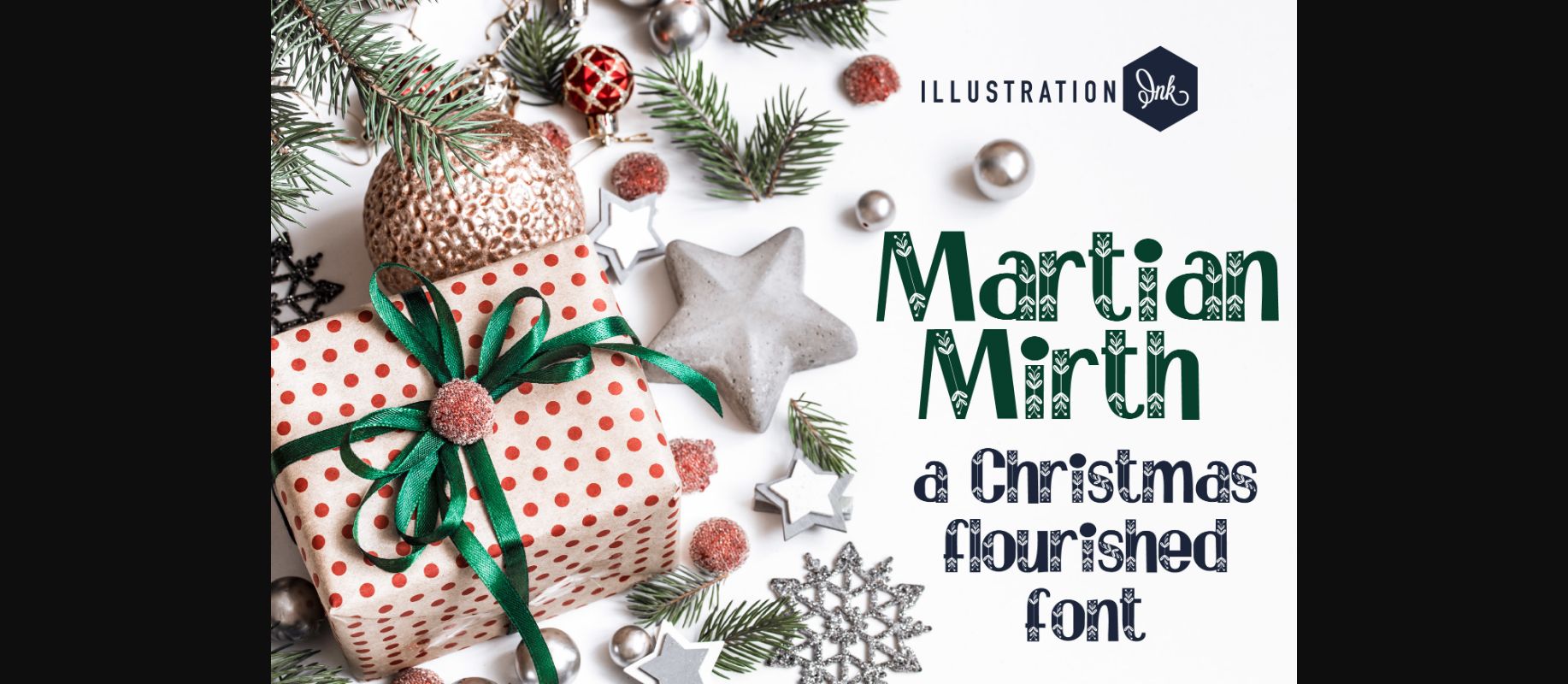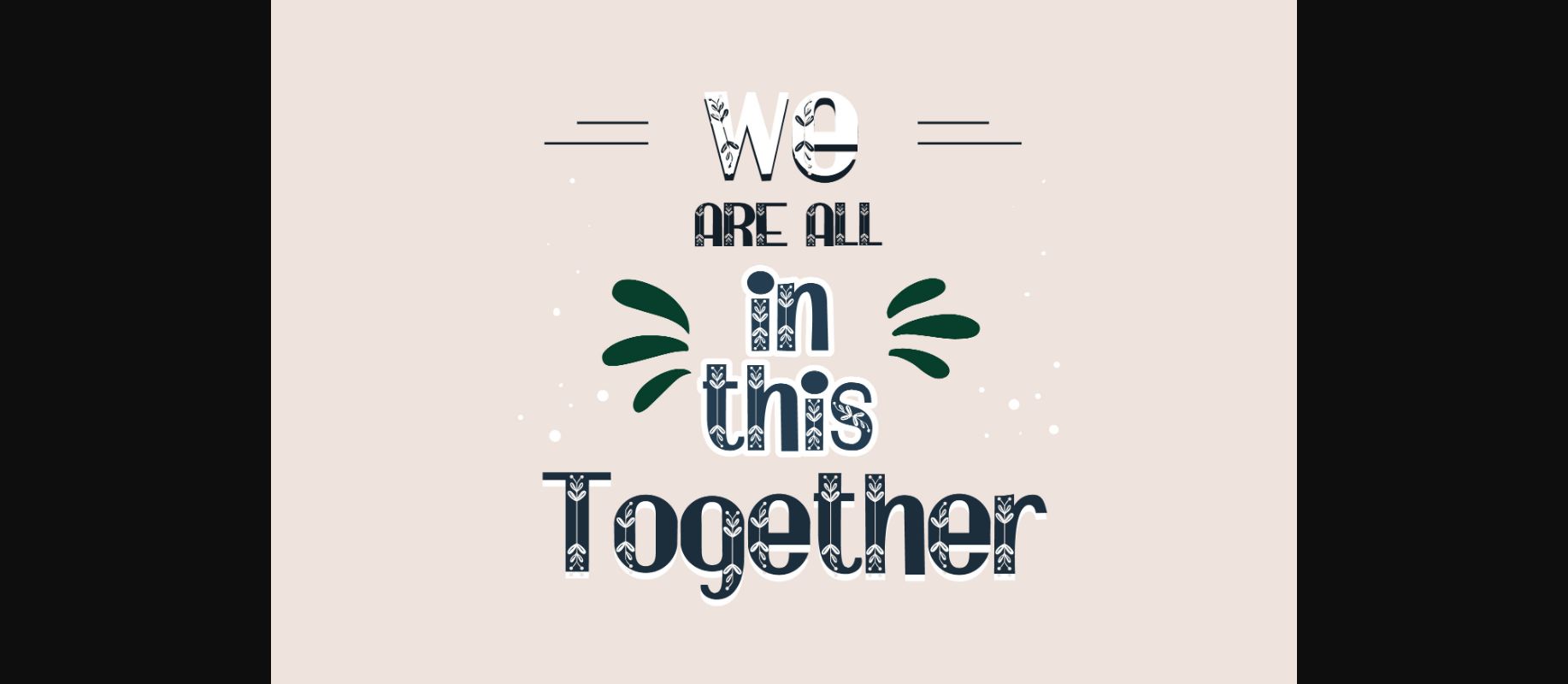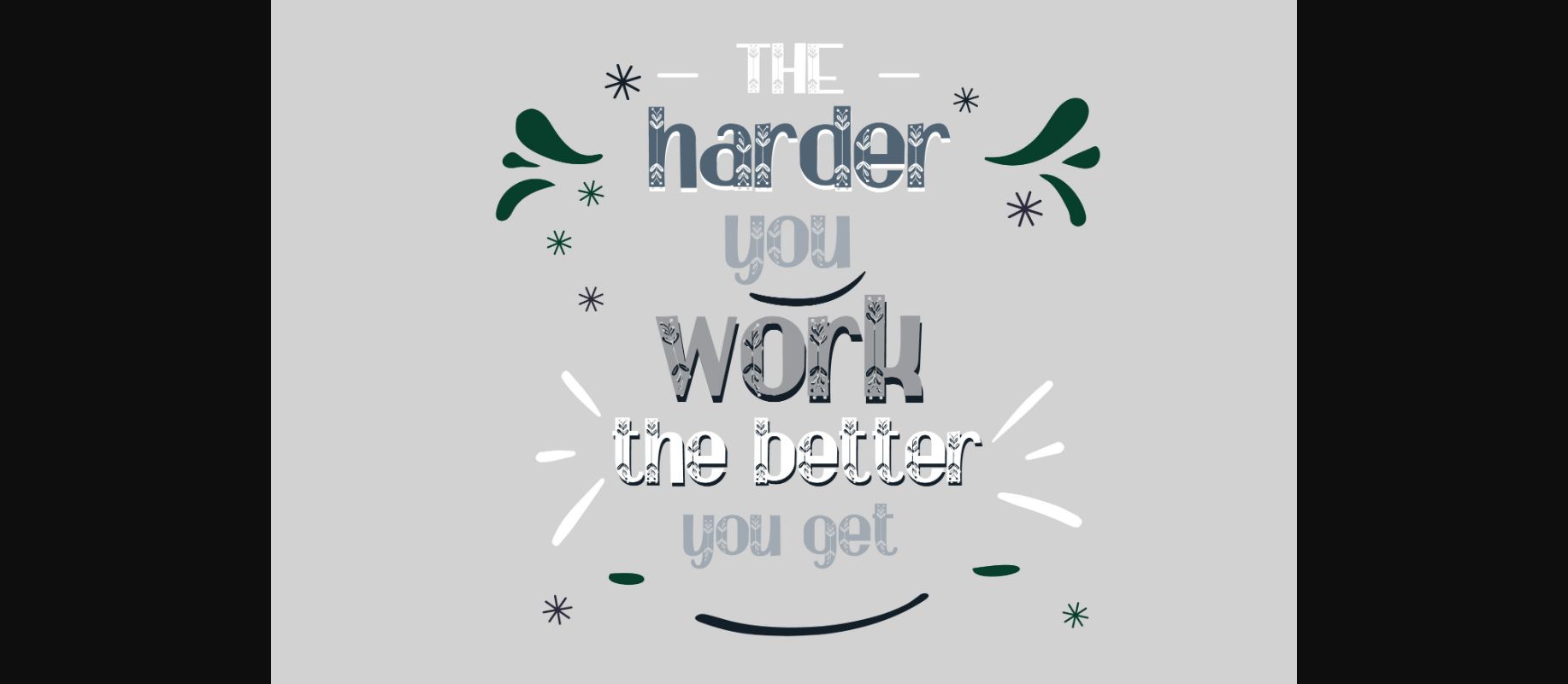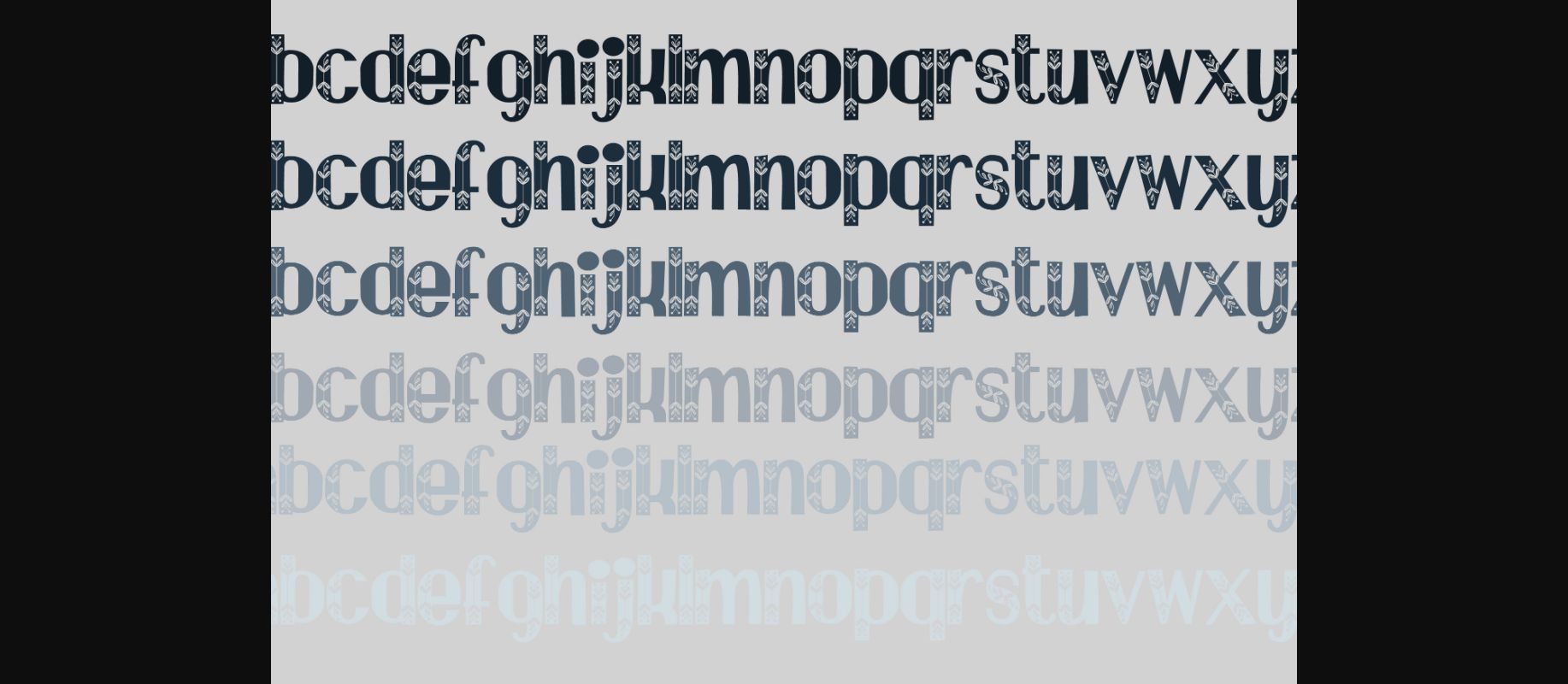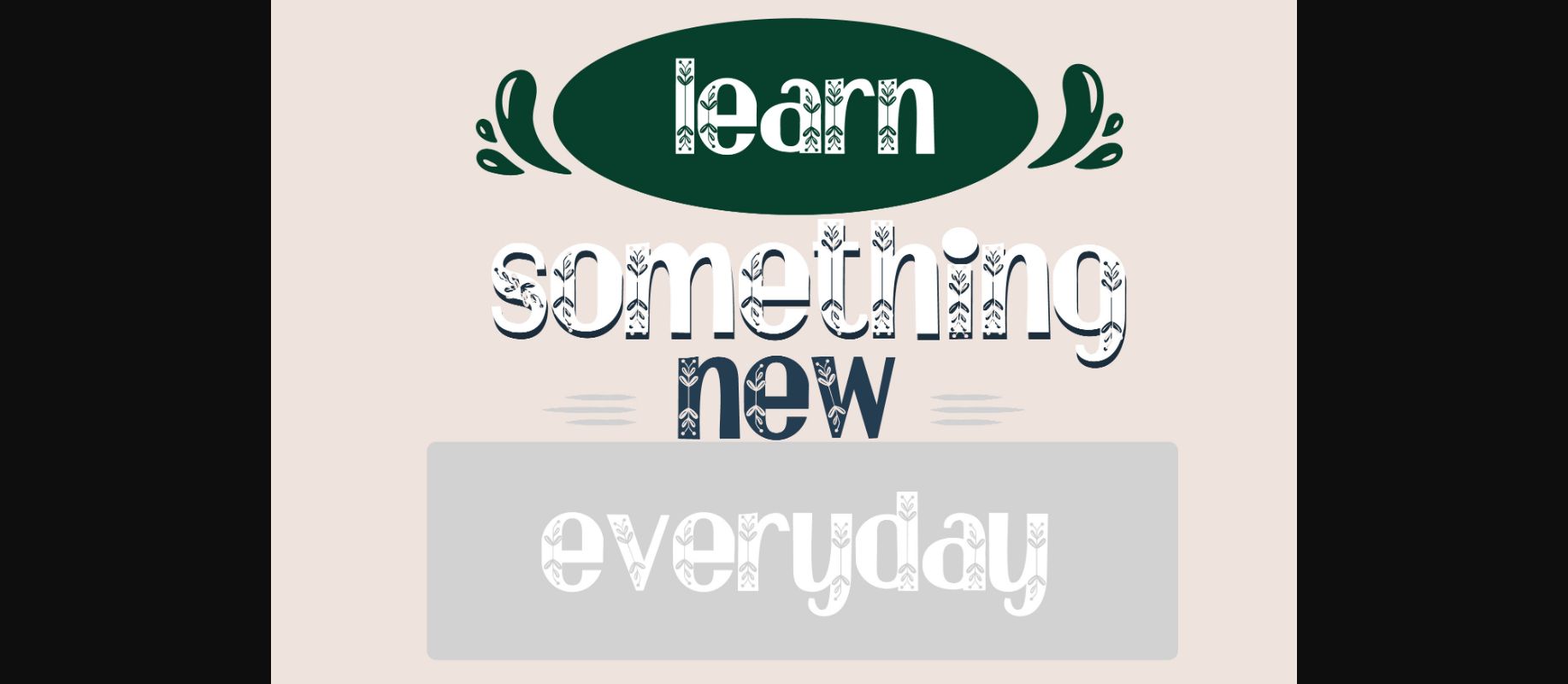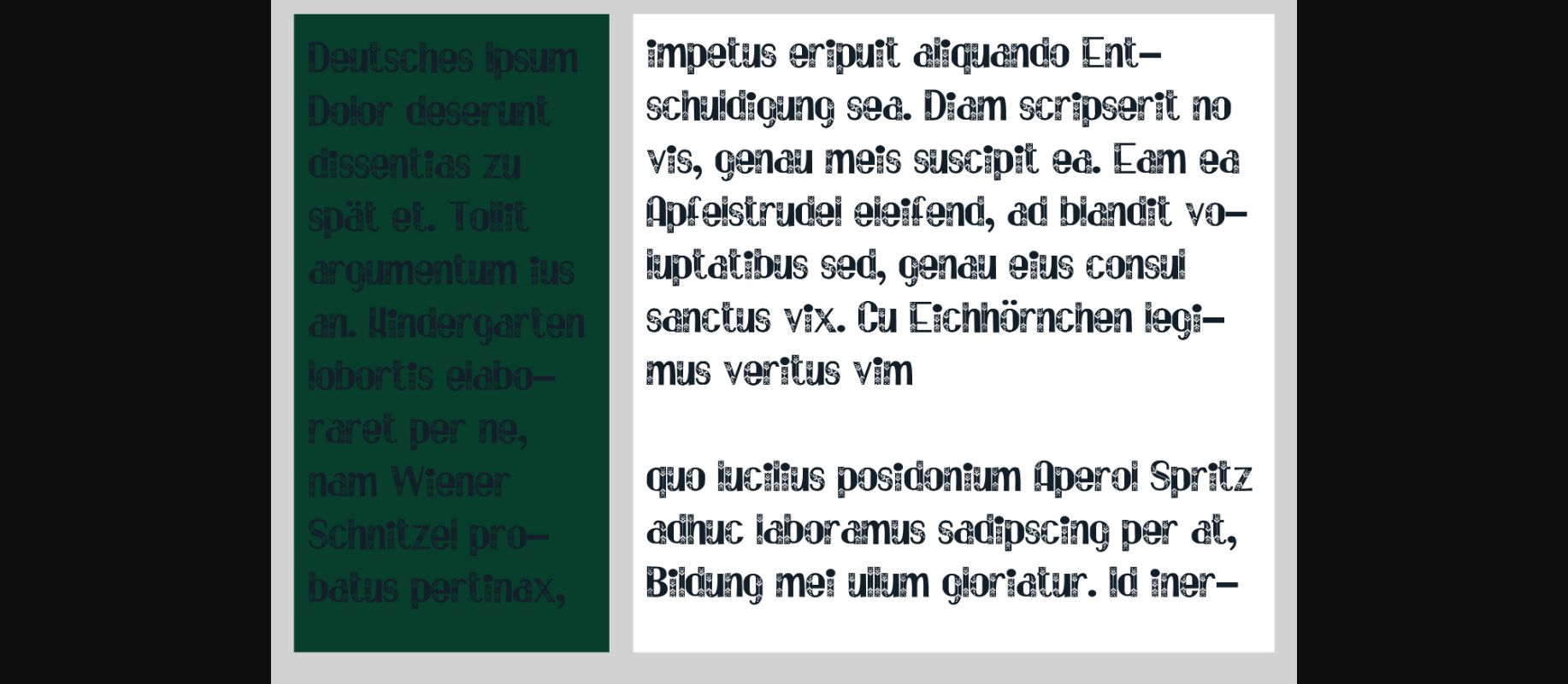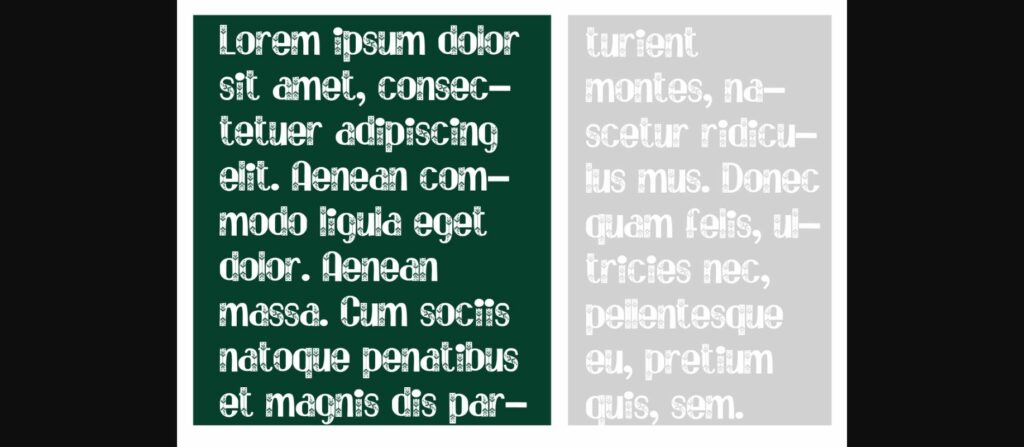
HomeDecorative FontsMartian Mirth Font Decorative Fonts Martian Mirth Font FacebookXPinterestWhatsApp 1 of 9 ... Martian Mirth Font Poster 2... Martian Mirth Font Poster 3... Martian Mirth Font Poster 4... Martian Mirth Font Poster 5... Martian Mirth Font Poster 6... Martian Mirth Font Poster 7... Martian Mirth Font Poster 8... Martian Mirth Font Poster 9... About Martian Mirth Font This pretty decorative sans serif font is filled with holiday trim. Martian Mirth will come in handy when you need to add some festive flair to your projects! DOWNLOAD NOW People also explored Spooky Dark Font Winter Joy Font Hello Bithosa Font Rose Monogram Font Retro Christmas Font Oplosans Font Dai Vernon Legerdemain Set Satigorius Font Mellodate Font 269 0 TagsMartian Mirth Font Previous articleJingle Bells FontNext articleMeringue Mistletoe Font LEAVE A REPLY Cancel reply Comment: Please enter your comment! Name:* Please enter your name here Email:* You have entered an incorrect email address! Please enter your email address here Website: Save my name, email, and website in this browser for the next time I comment. Personal Use Free Color Personal Use Free Read more about this font Messages Personal Use Free Read more about this font Samureix Personal Use Free Read more about this font Millea Personal Use Free Read more about this font BLOG How to Install and Use Fonts on Windows, macOS, and Web Projects How to Install and Use Fonts on Windows, macOS, and Web Projects Fonts are a crucial part of design and branding. Whether you’re designing a... Best Fonts for T-Shirt Design – Top 2025 Picks Modern Sans-Serif Fonts That Brands Love in 2025 Free vs Paid Fonts: Why Investing in Premium Fonts Is Worth It